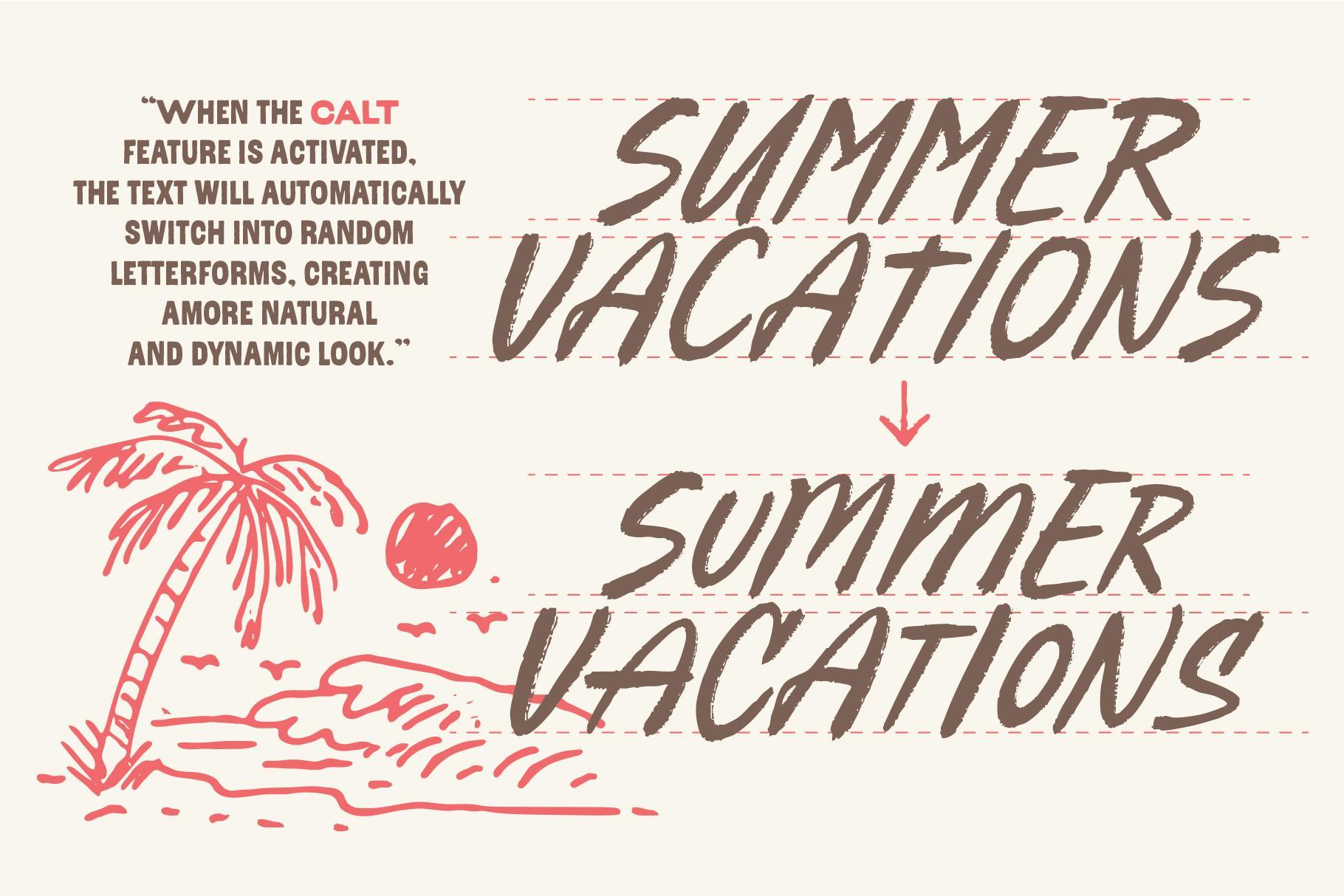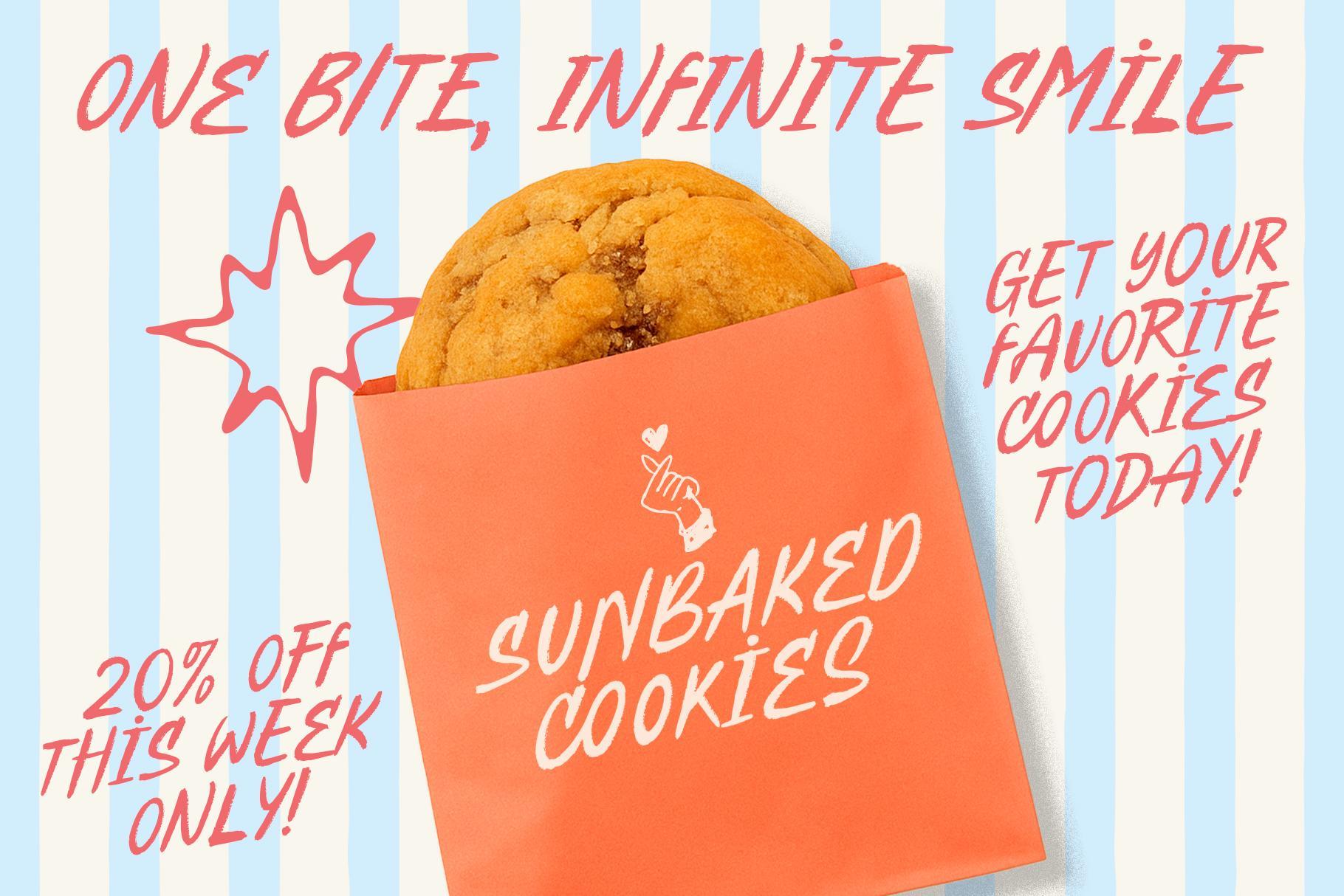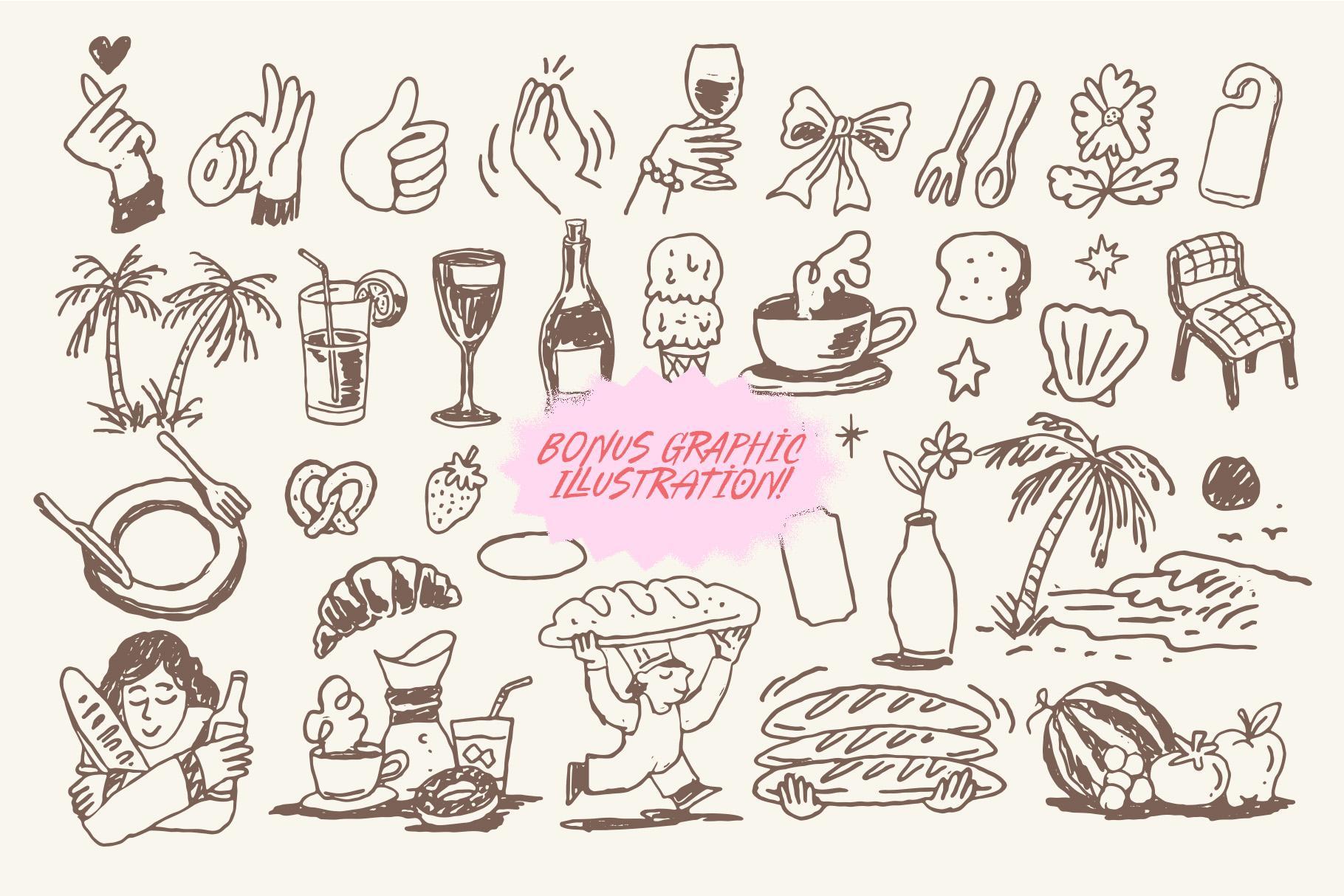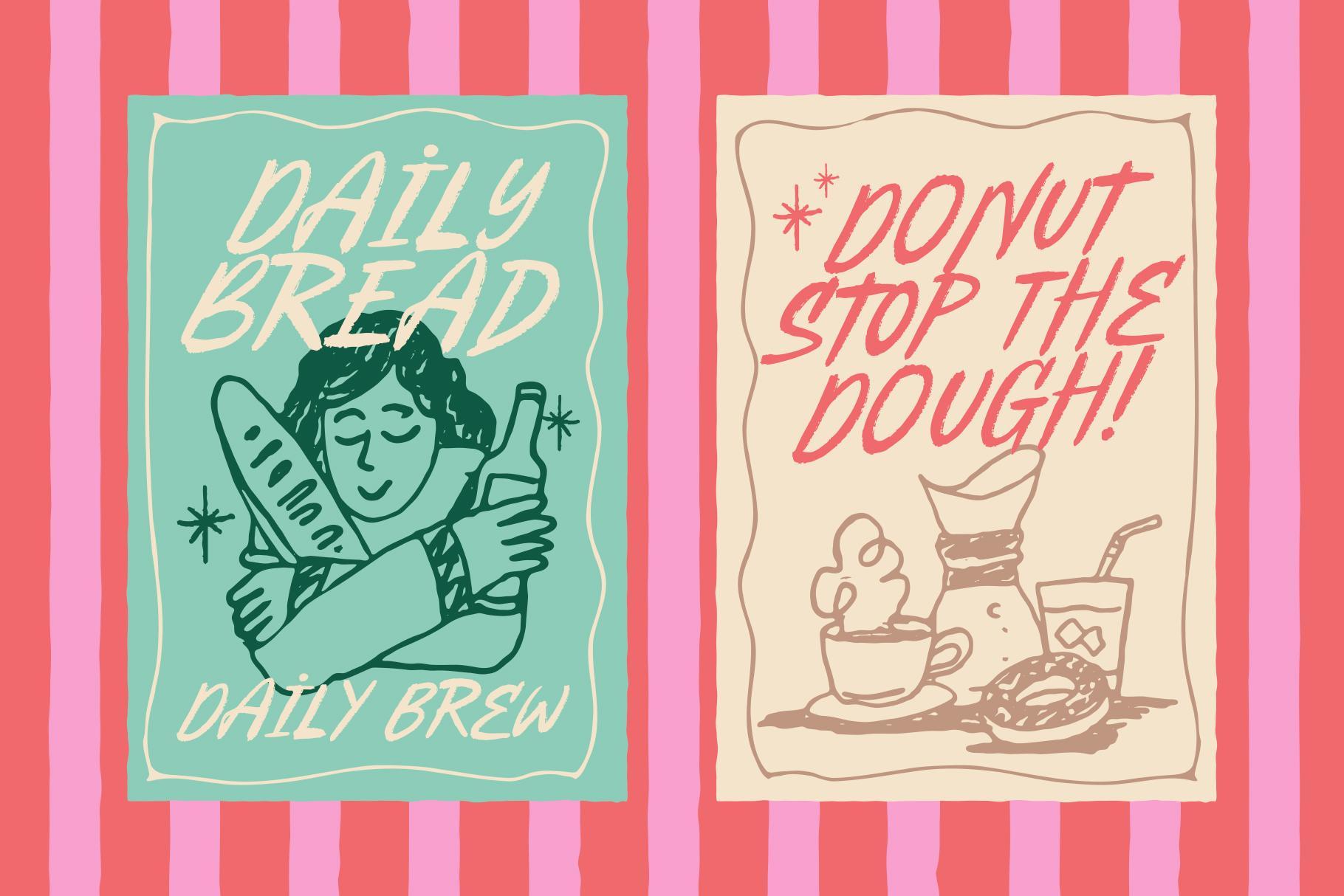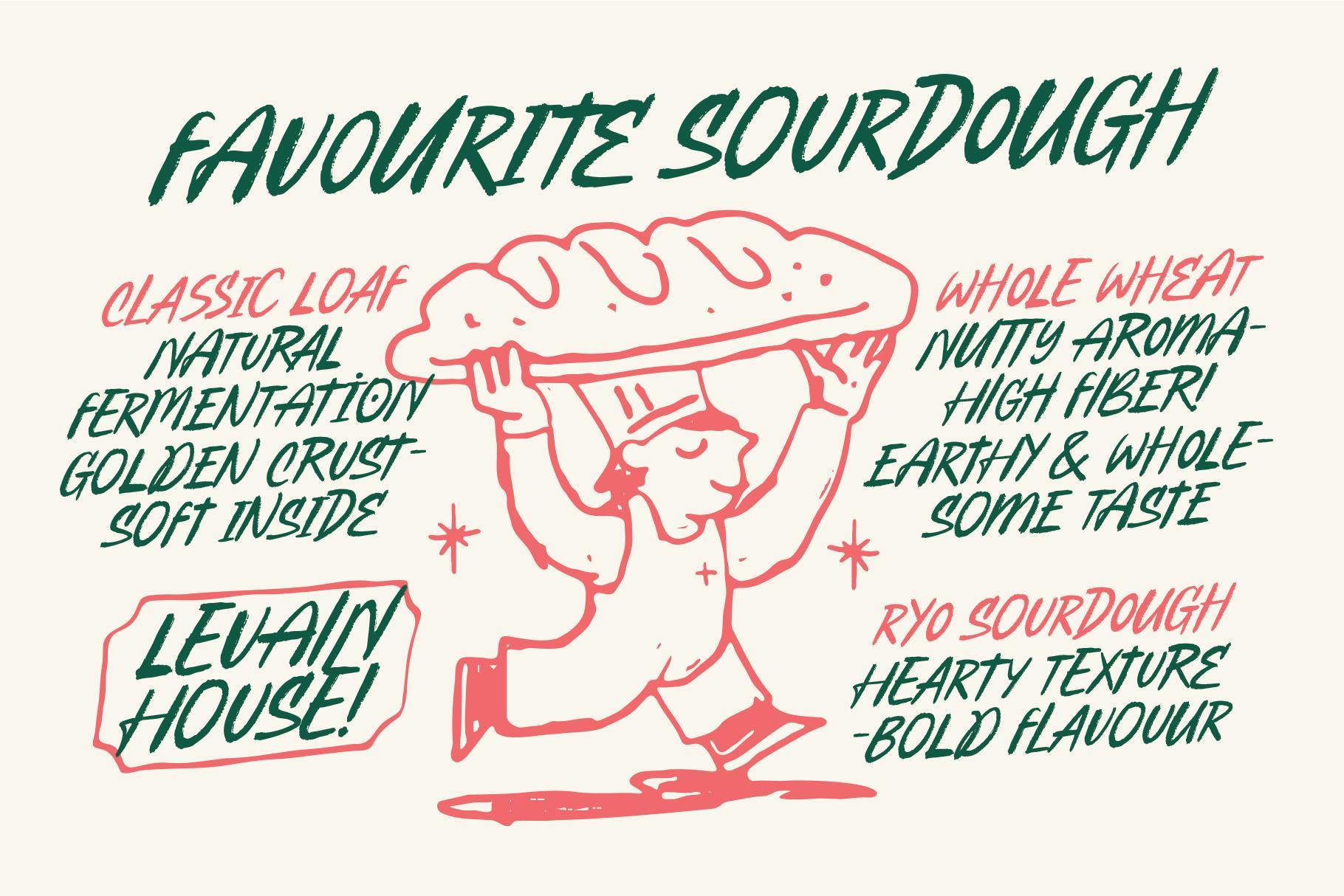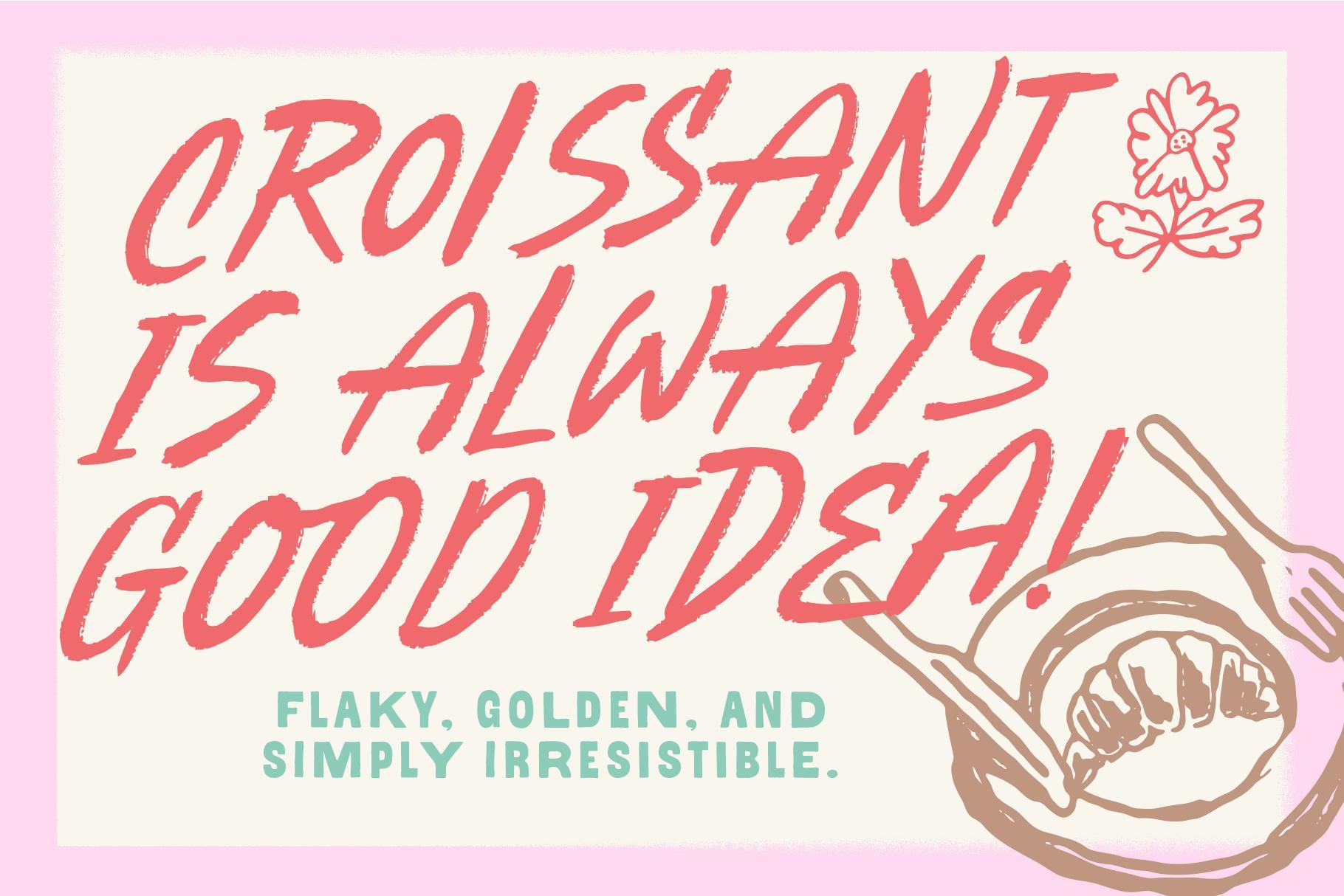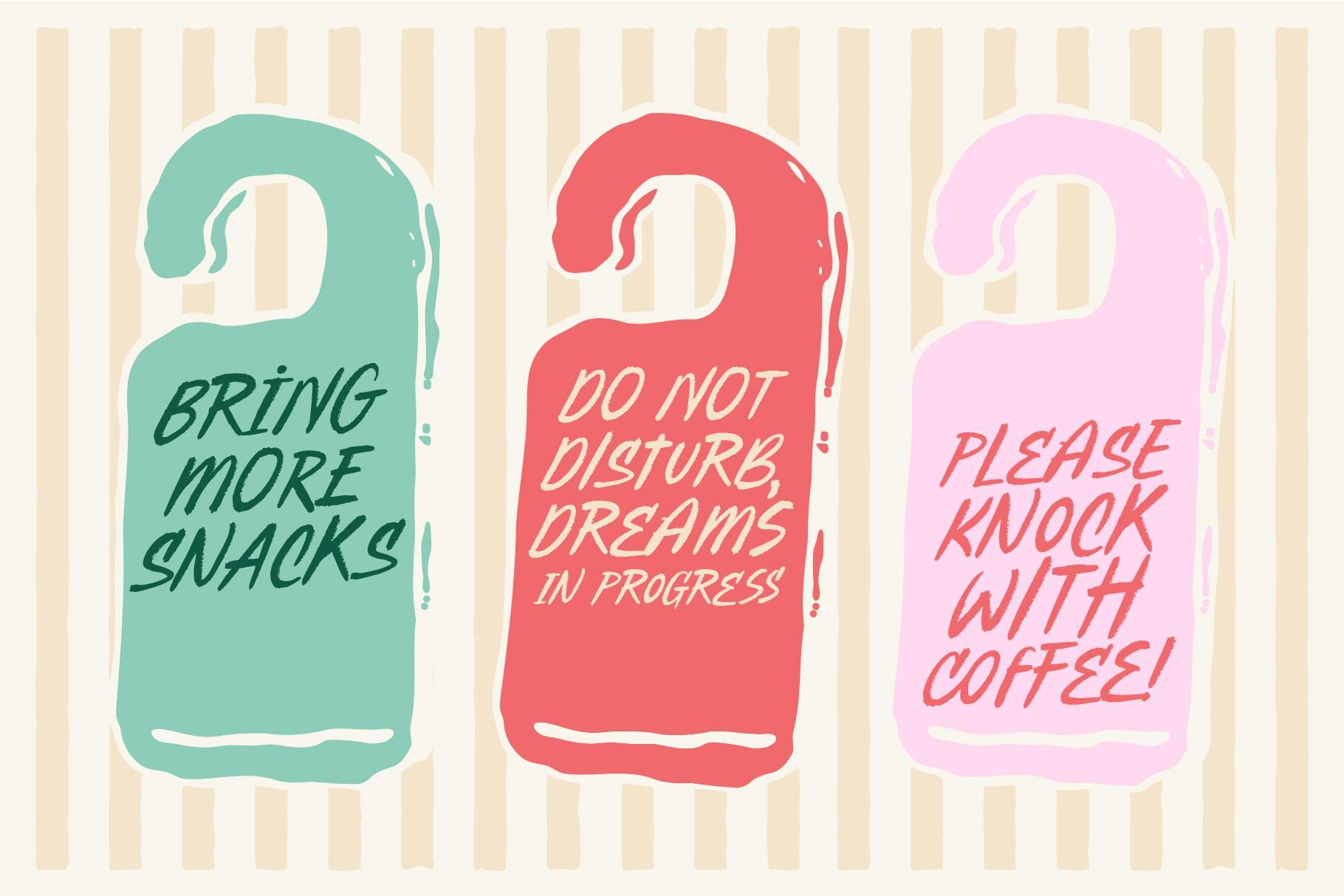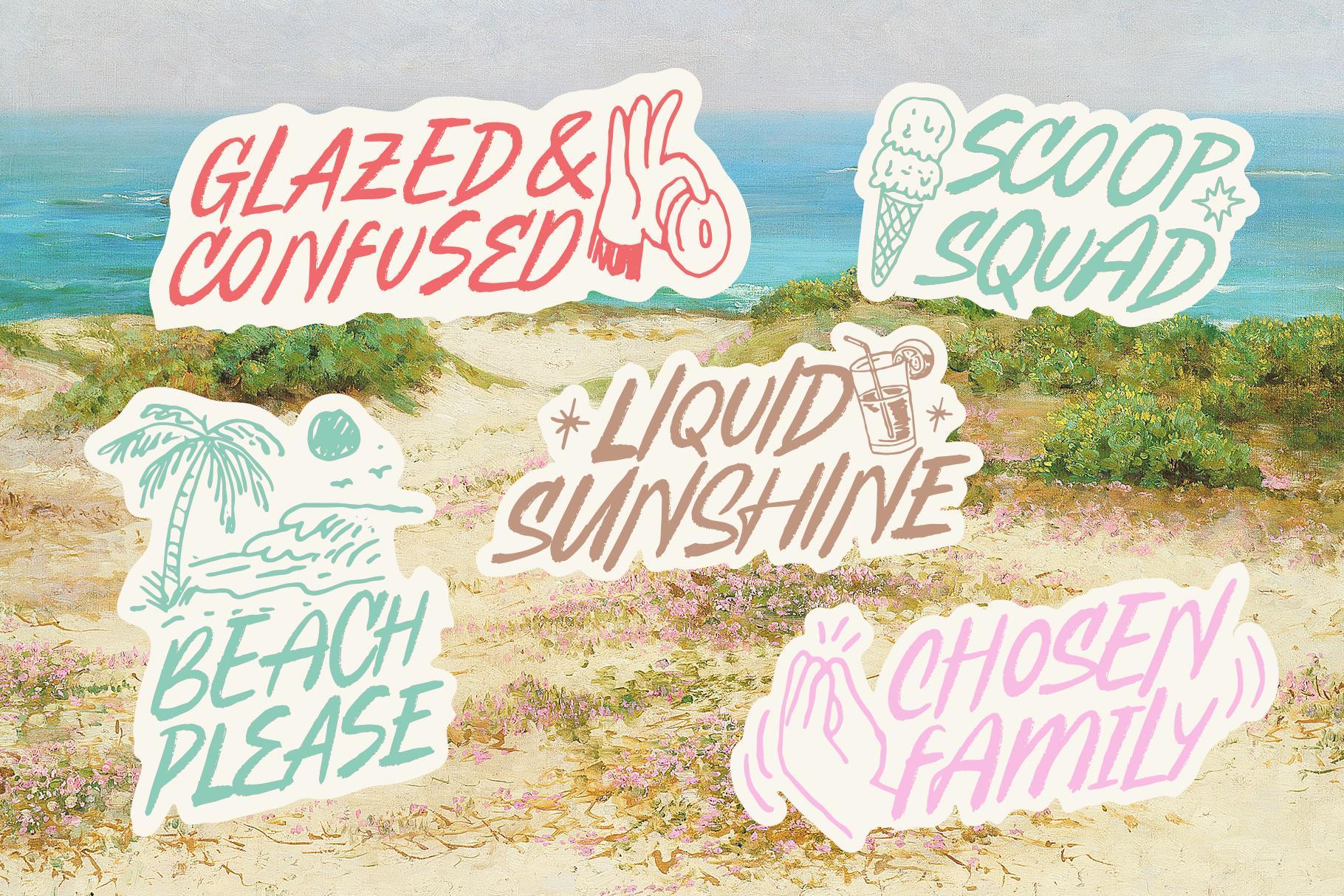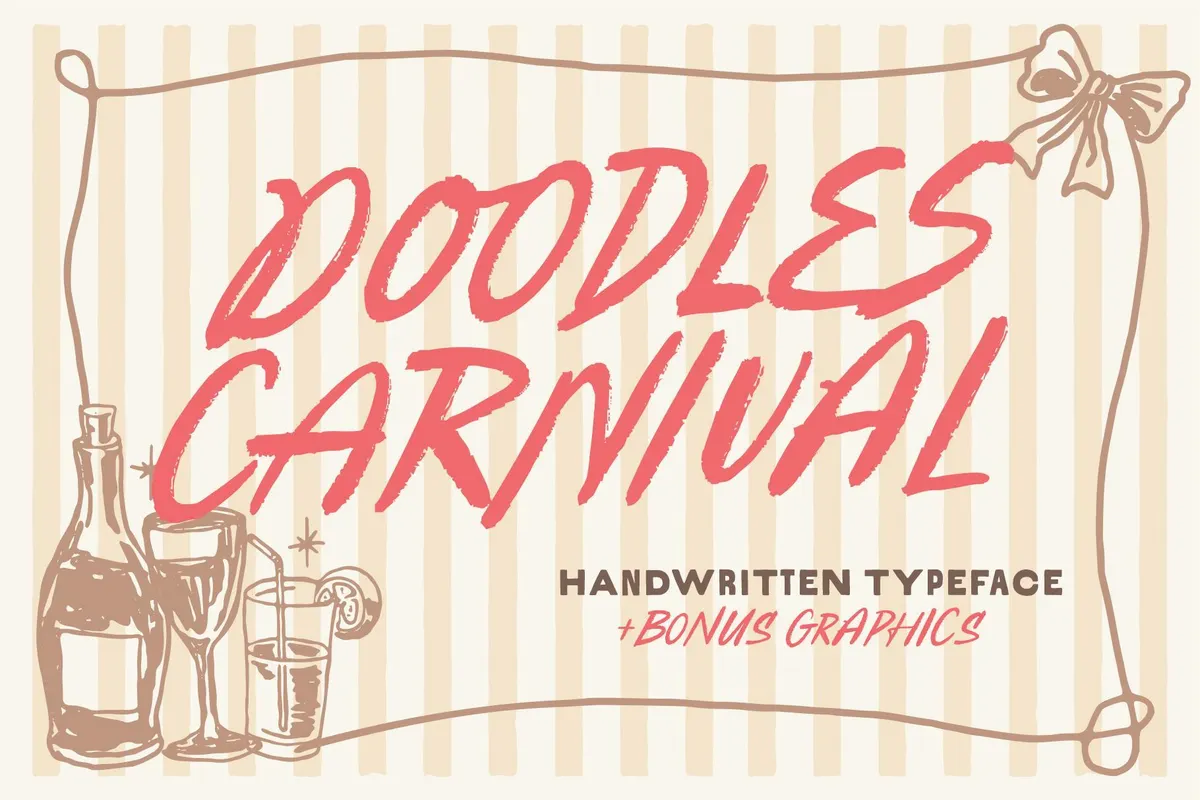
TNSC Doodles Carnival - Handwritten Font
TNSC Doodles Carniva is a bold and playful handwritten typeface bursting with energy. Featuring expressive brush strokes and a natural textured look, it brings a cheerful, carnival-inspired vibe to any design project. Perfect for posters, packaging, invitations, branding, greeting cards, and more, this font adds a stylish yet fun touch wherever you use it.
The set includes 2 styles (Regular & Dingbats) plus Bonus Graphics , giving you both expressive lettering and decorative elements to make your work stand out.